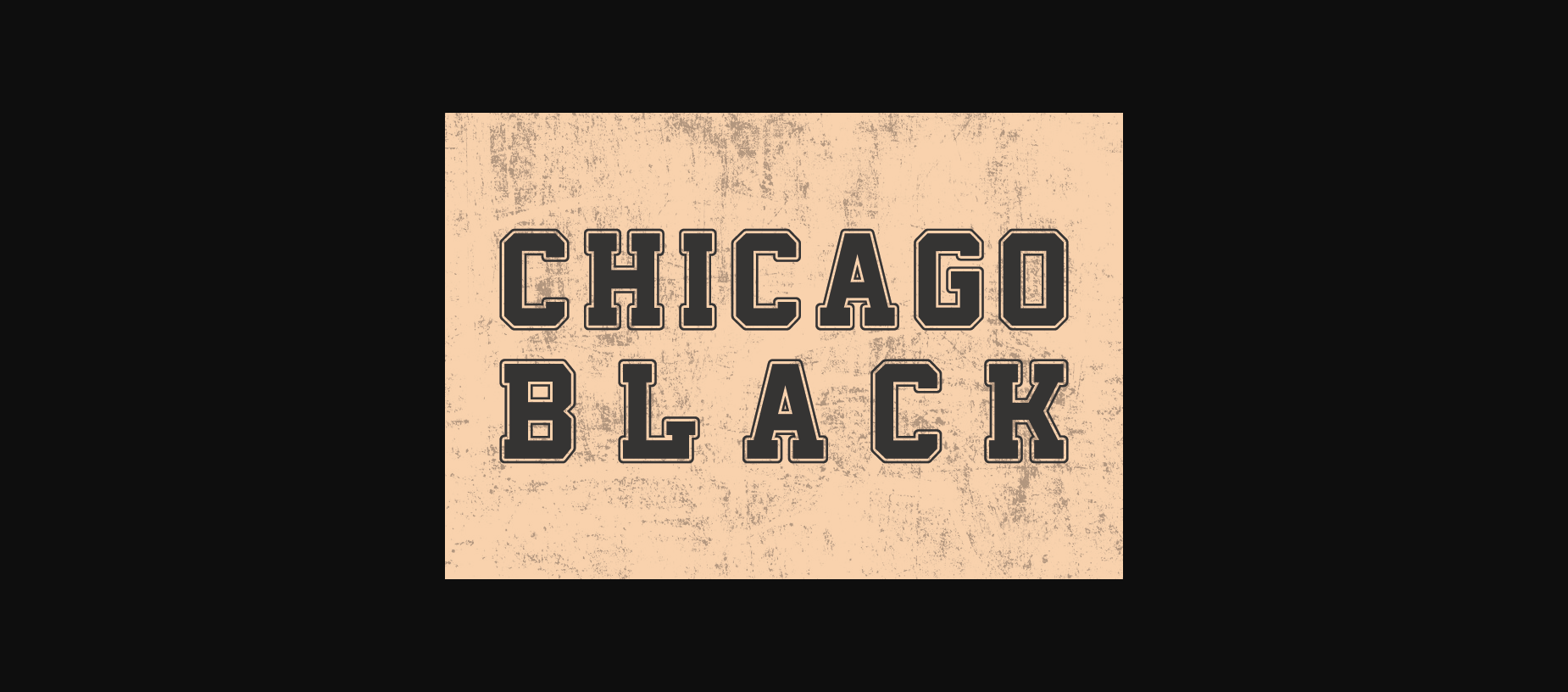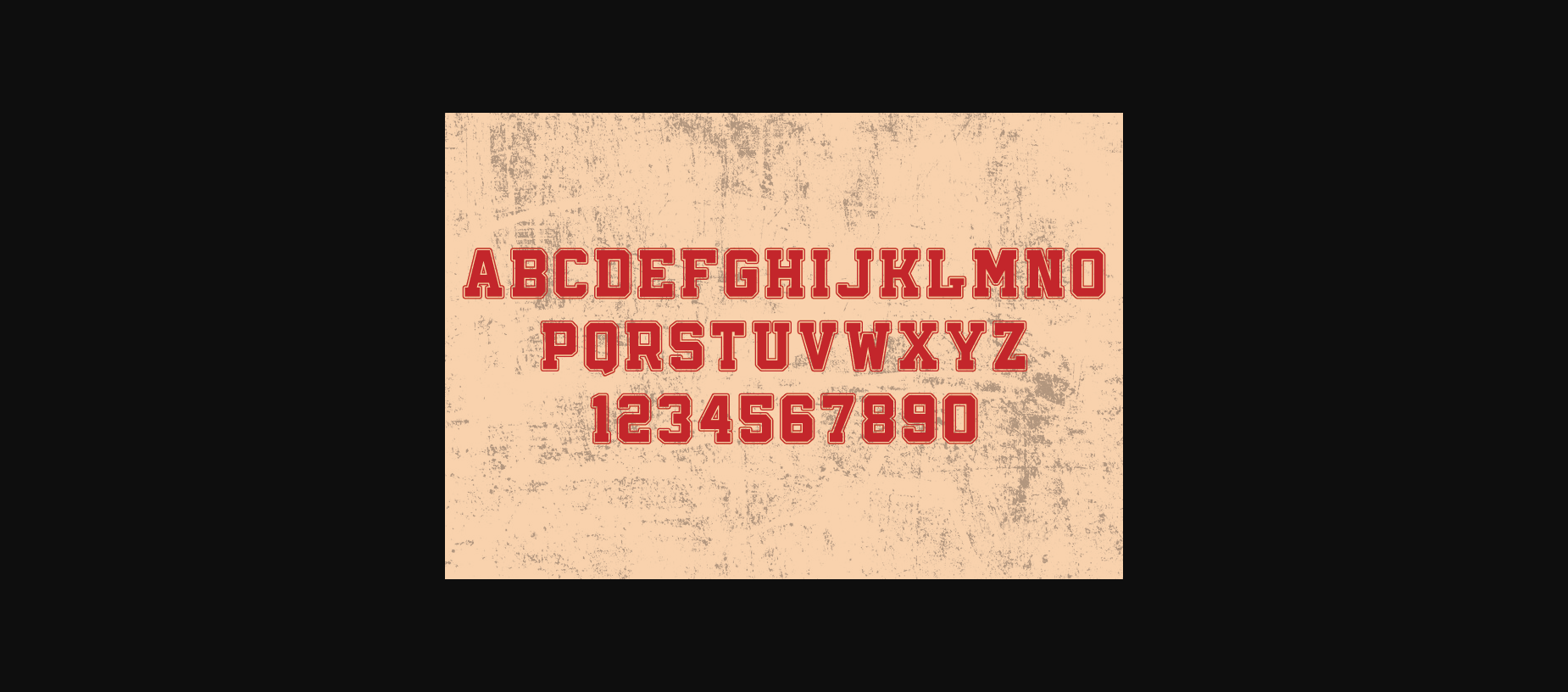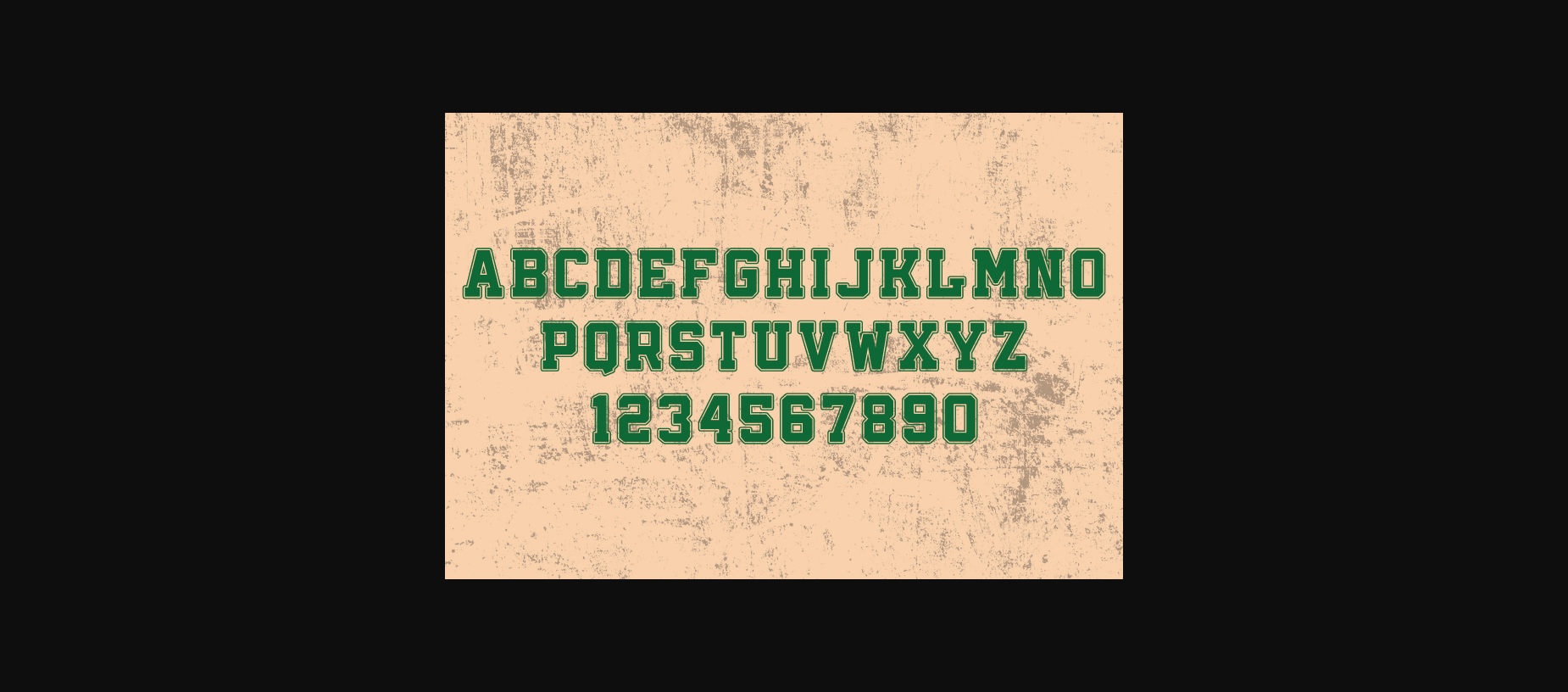
Chicago Black is a simple Western-style serif font designed for a clean retro look. With its vintage balanced proportions, this font is perfect for creating a minimalist aesthetic in logos, web design, and branding.